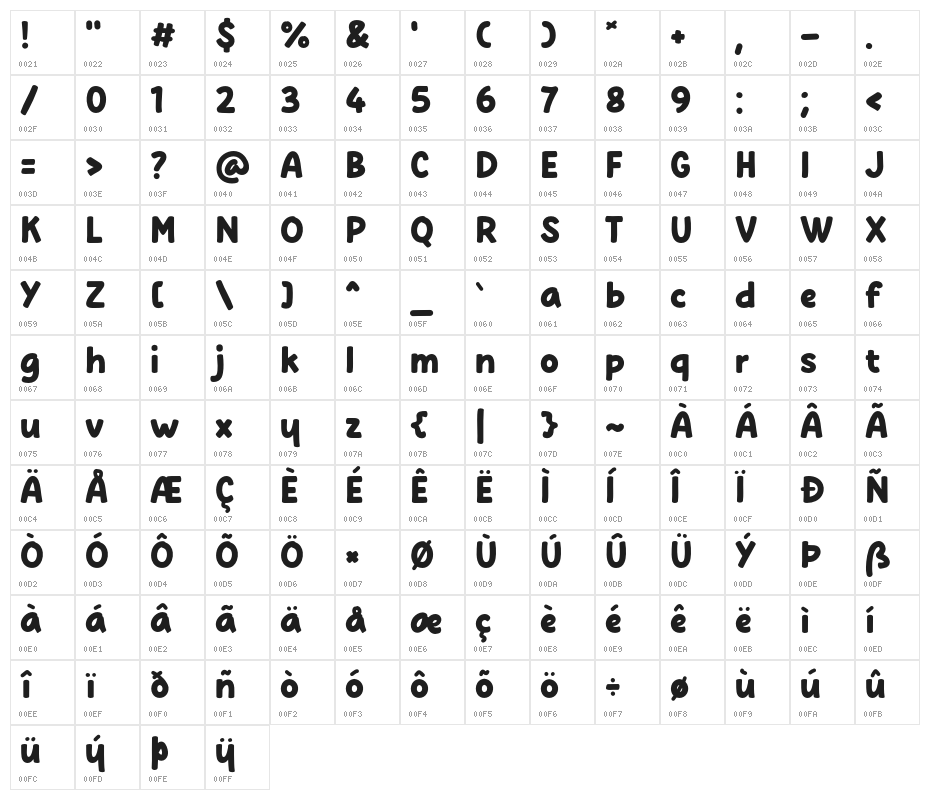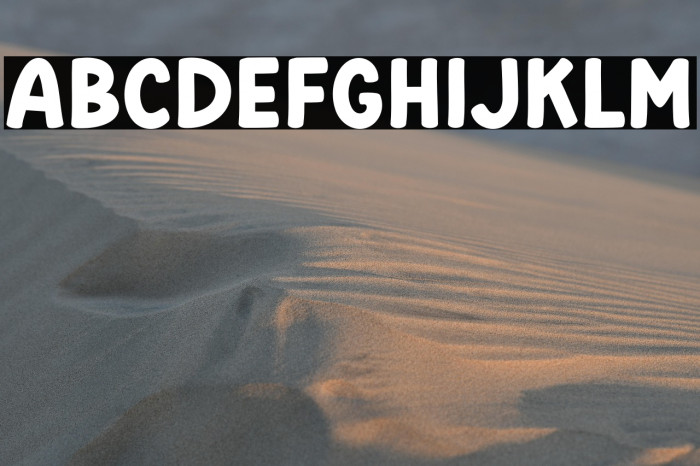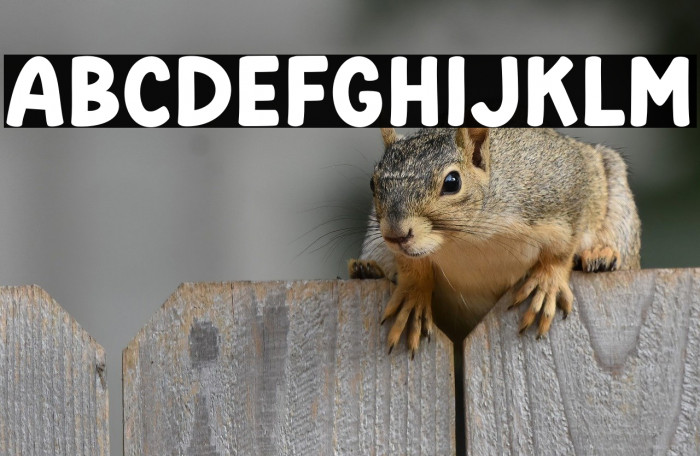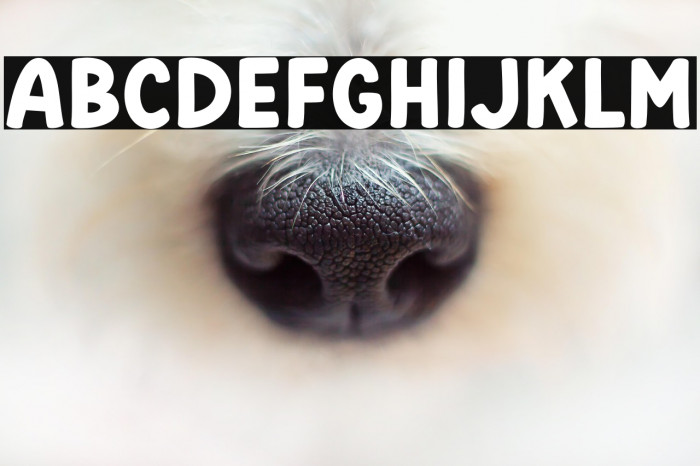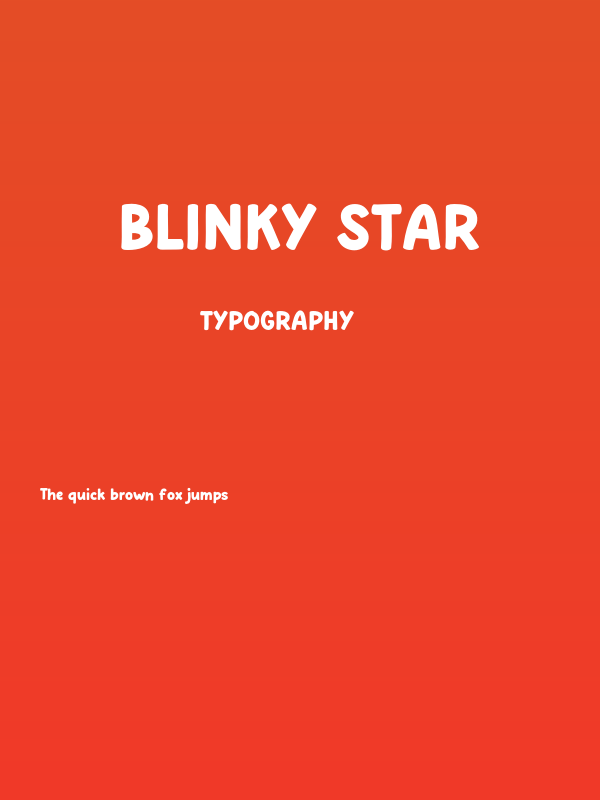
Blinky Star Font
Blinky Star Description
This playful and bold font features rounded, thick strokes that give it a friendly and approachable appearance. The letters are slightly irregular, adding a whimsical touch that makes it stand out. The uppercase and lowercase characters maintain a consistent style, with the lowercase letters being slightly more compact. The numerals are bold and easy to read, while the special characters are designed to match the overall playful aesthetic. This font is perfect for projects that require a fun and informal tone, such as children's books, playful branding, or casual invitations.
| Proposed Projects | Children's books, playful branding, casual invitations, posters, and social media graphics. |